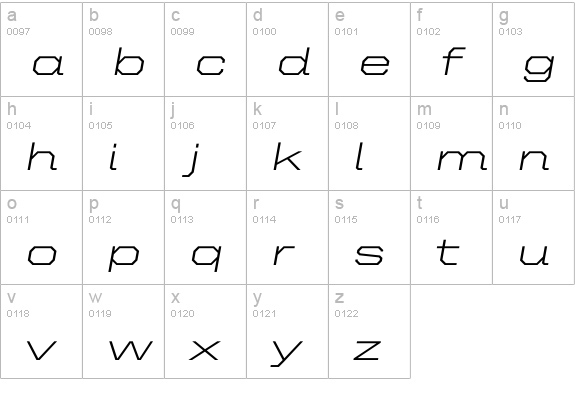
United Italic Ext Light is a refined, elegant, italic variant in the United typeface family \xE2\x80\x94 well suited to elegant body text, refined sub-headings, and luxury branding.
The United Italic Ext Light font is a stunning display of elegance and sophistication. Its slim and delicate letterforms exude a sense of grace and refinement, making it the perfect choice for any project that requires a touch of modernity and style. With its subtle slant and elongated proportions, this font effortlessly captures attention and adds a touch of sophistication to any design. It is the epitome of versatility, seamlessly blending into both digital and print mediums. The light weight of the United Italic Ext Light font adds an ethereal quality to the text, creating a sense of lightness and airiness. This makes it an ideal choice for projects that require a delicate touch, such as wedding invitations, fashion magazines, or high-end branding. What makes the United Italic Ext Light font even more remarkable is the fact that it is freely available to download at FontsMarket.com. This means that you can easily access and utilize this exquisite font in your creative endeavors without any cost constraints. Whether you are a professional designer looking to elevate your designs or an individual looking to add a touch of elegance to personal projects, the United Italic Ext Light font is sure to exceed your expectations. Download it today and experience the beauty and versatility of this stunning typeface.